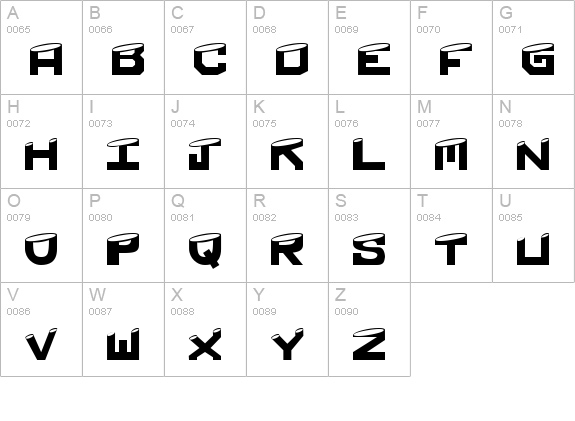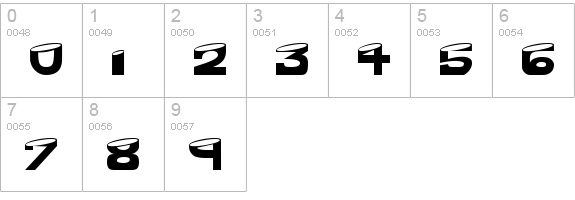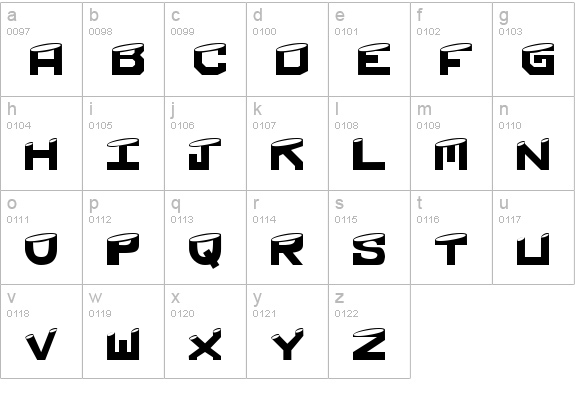
Shaved Font Details
Shaved font is a stylish and modern typeface that adds a touch of sophistication to any design project. With its clean lines and smooth curves, this font is perfect for creating eye-catching headlines, logos, and branding materials. The unique feature of Shaved font is its sleek and contemporary look, which is achieved through the absence of serifs. This gives the font a minimalist and clean appearance, making it suitable for a wide range of applications. Whether you're designing a website, a poster, or a business card, Shaved font will effortlessly elevate your design to the next level. One of the best things about Shaved font is that it is free. That's right, you can download this amazing font for absolutely no cost at FontsMarket.com. This means that you can use it in personal and commercial projects without worrying about breaking the bank. It's the perfect choice for designers who want to add a touch of elegance and professionalism to their work without spending a fortune. With its versatility and accessibility, Shaved font is a must-have for any designer's font collection. Its clean and modern aesthetic combined with its free availability make it an irresistible choice for all your design needs. So why wait? Head over to FontsMarket.com and download Shaved font today to take your designs to new heights.